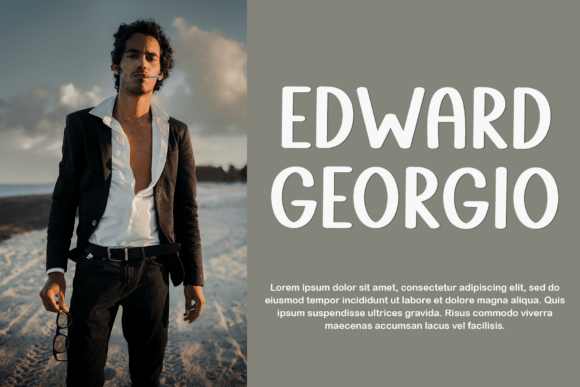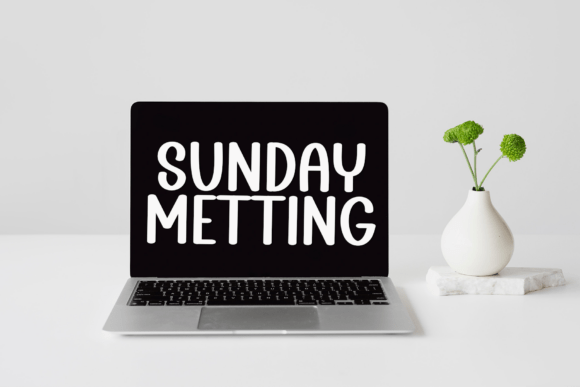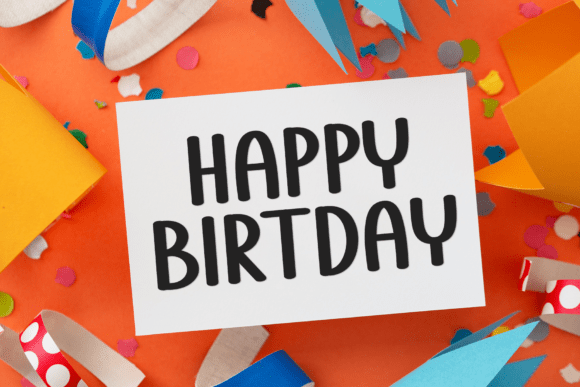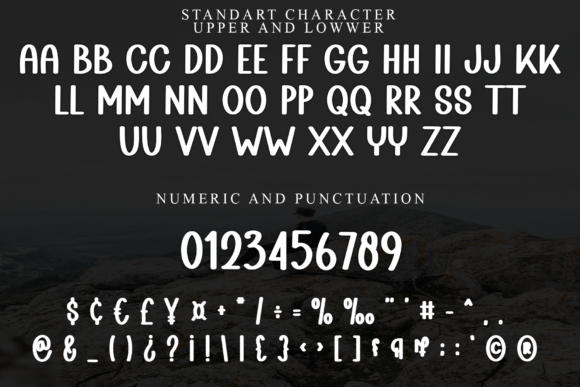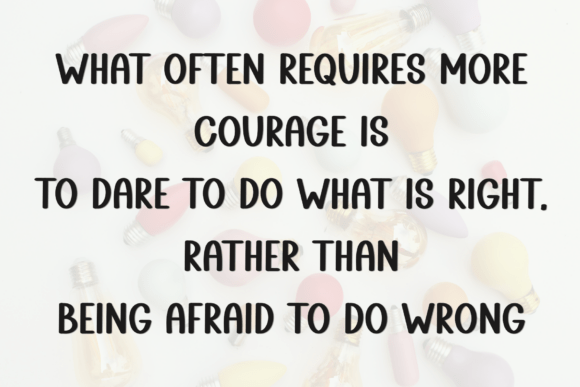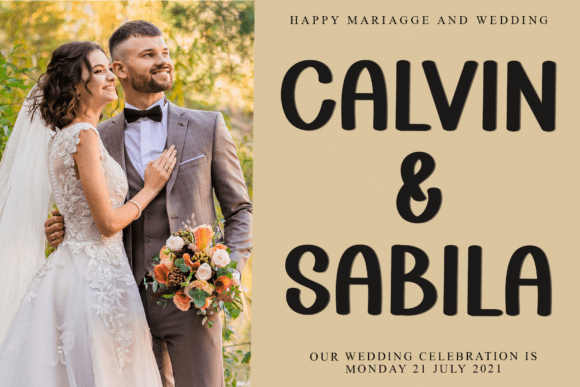
The Joy of Flower Handmade Font: A Designer’s Delight
I’ll never forget the time I was working on a children’s book project, and I just couldn’t find the right font to match the playful illustrations. The client wanted something that would bring a smile to kids’ faces, but I was stuck in a design rut. That’s when I stumbled upon the Flower Handmade Font, and it was love at first sight! 💕
This charming, handwritten display font has been a game-changer for my designs, and I’m excited to share its magic with you. Bursting with personality, Flower Handmade Font brings a fun and whimsical vibe to any project, making it perfect for children’s projects, greeting cards, logos, posters, and creative branding.
- ✅ Playful, bouncy letterforms that add a hand-crafted charm to designs
- ✅ Casual strokes and imperfections that give it a delightfully handmade feel
- ✅ Perfect for kids’ projects, greeting cards, and creative branding that needs a touch of whimsy
- ✅ Easy to read and understand, even at smaller font sizes
- ⚠️ Some letters may appear a bit inconsistent in size or spacing, which can be a minor distraction
- ⚠️ Not ideal for body text or long-form content, as it’s best suited for display purposes
The Story Behind Flower Handmade Font
Flower Handmade Font was designed with the intention of capturing the joy and playfulness of handmade crafts. The designer, inspired by the world of children’s books and whimsical illustrations, aimed to create a font that would bring a smile to people’s faces. With its bouncy letterforms and casual strokes, Flower Handmade Font is a testament to the power of creativity and imagination.
Q: Is Flower Handmade Font suitable for body text?
A: While Flower Handmade Font is beautiful, it’s best suited for display purposes and not ideal for body text or long-form content.